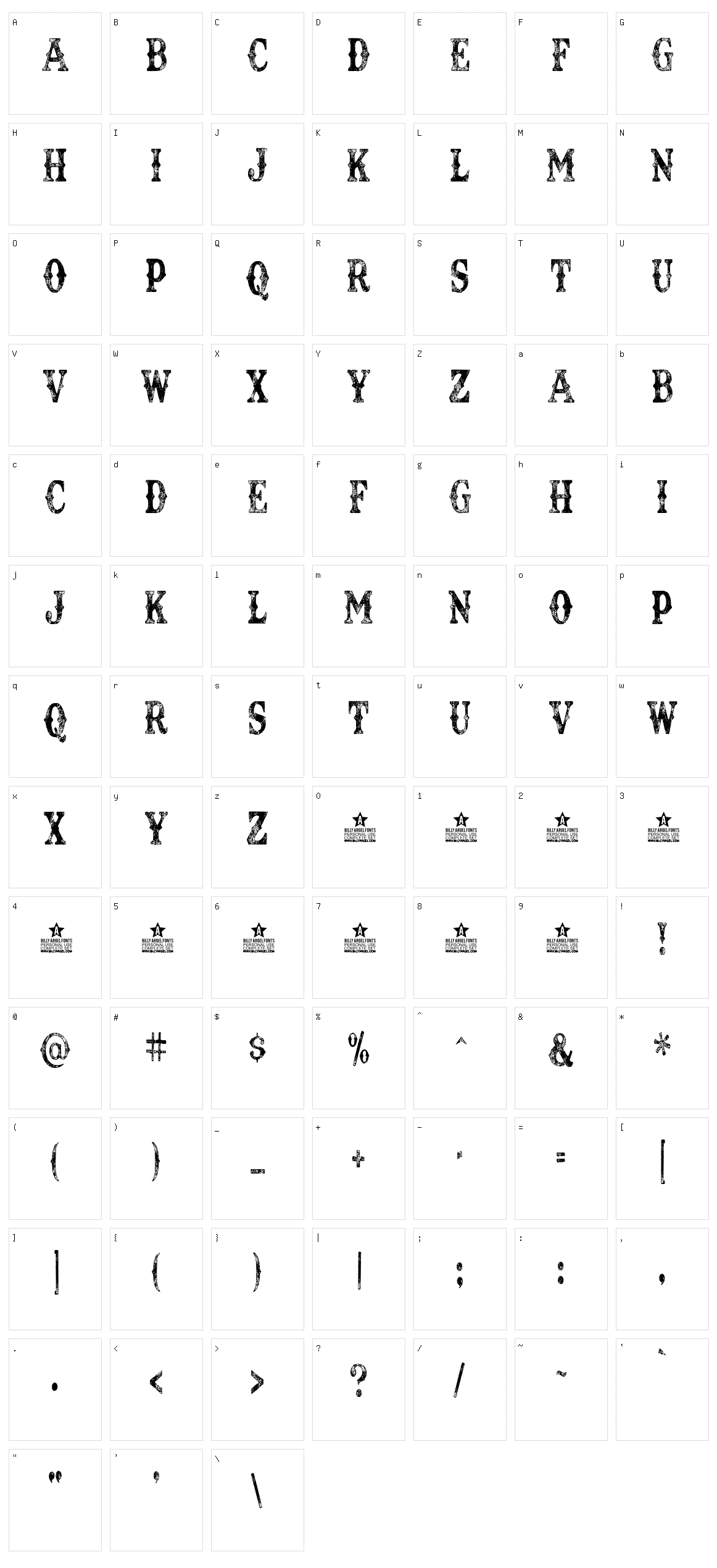
The free font Texas Tango Extra Roth is carefully designed by Billy Argel Fonts ®, showcasing a thoughtful balance of creativity and usability and falls under the Western font style. When you download the ZIP file, it contains only 2981.71 KB of font files, making it lightweight and quick to download. Please review the license details below to understand permitted usage and distribution rights. If license information is not available, we recommend using this font for personal projects only or contacting the author directly for commercial usage permissions.